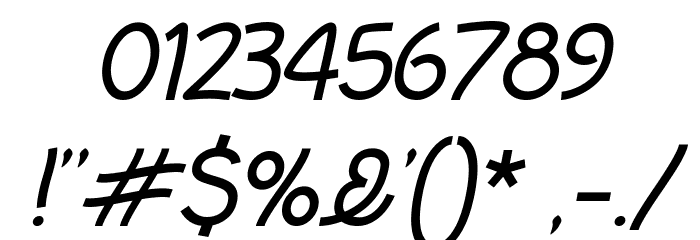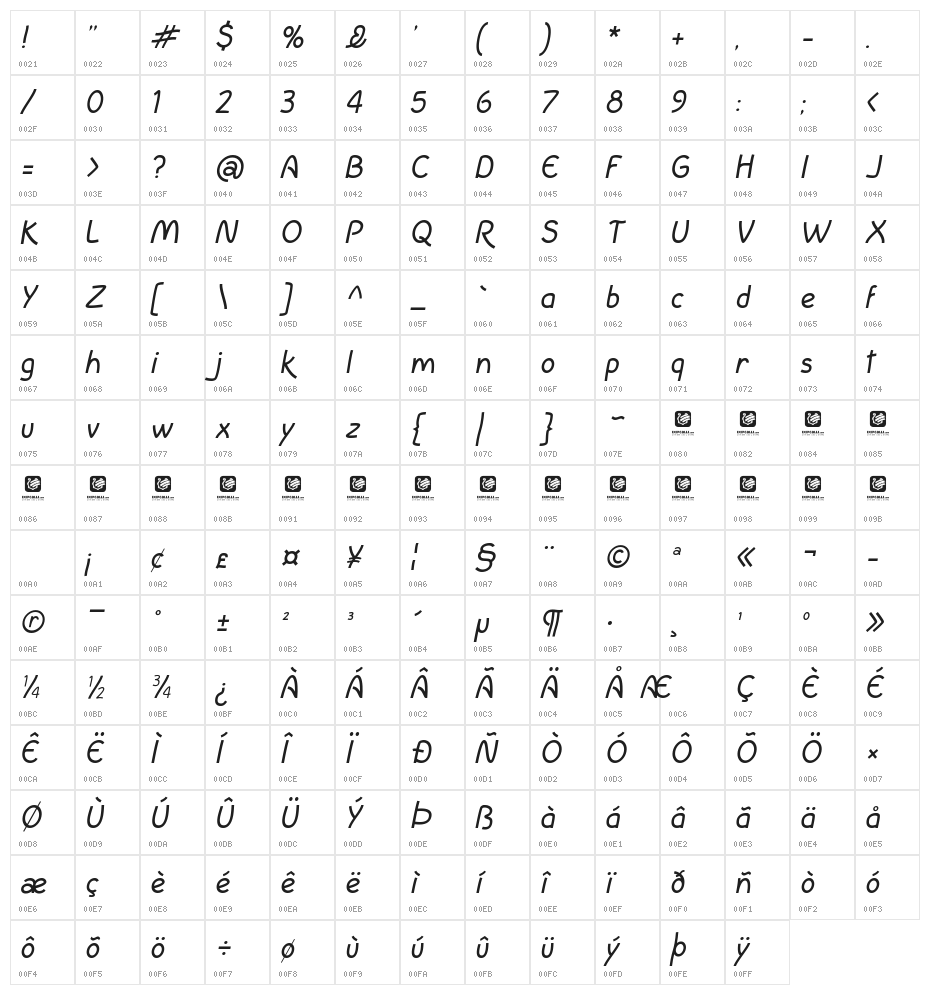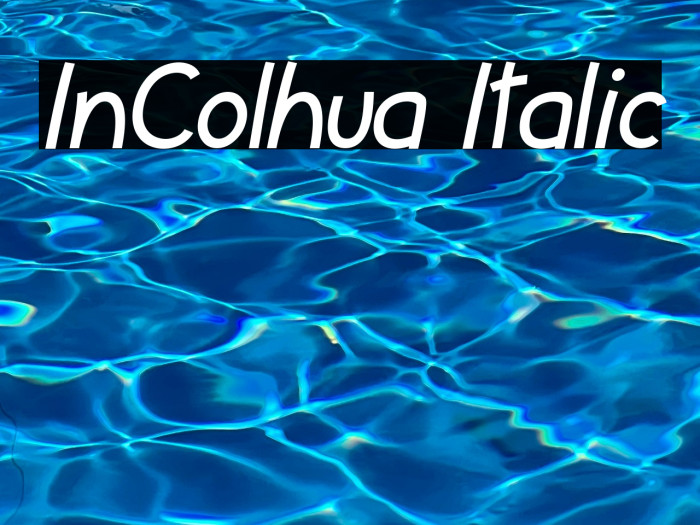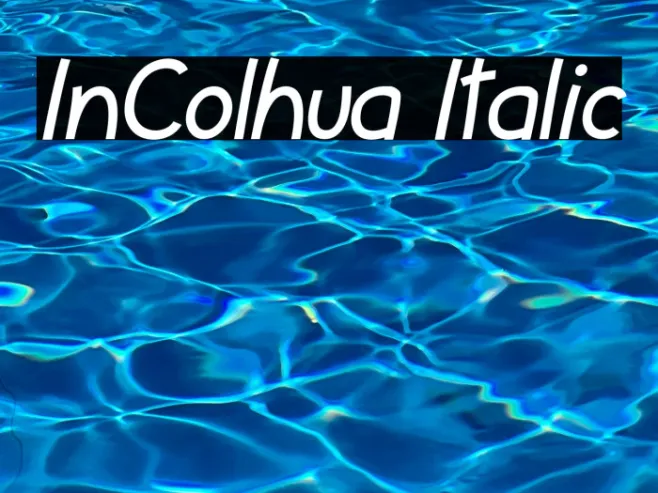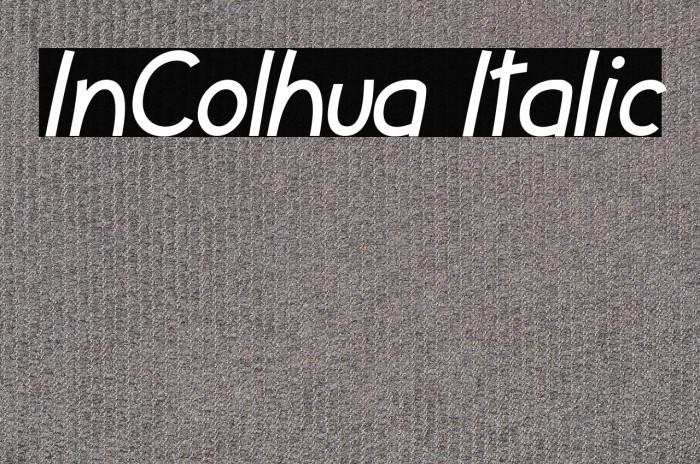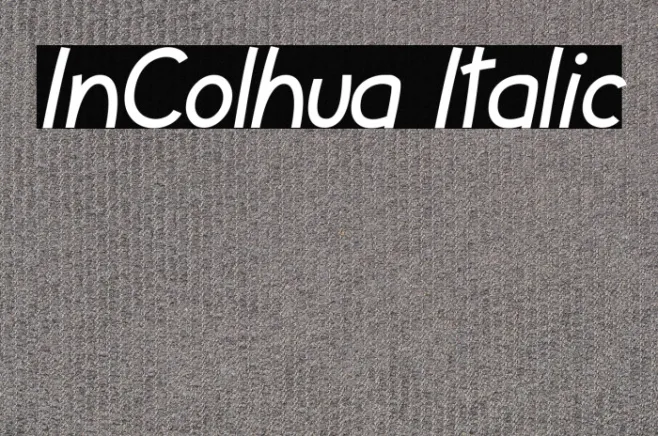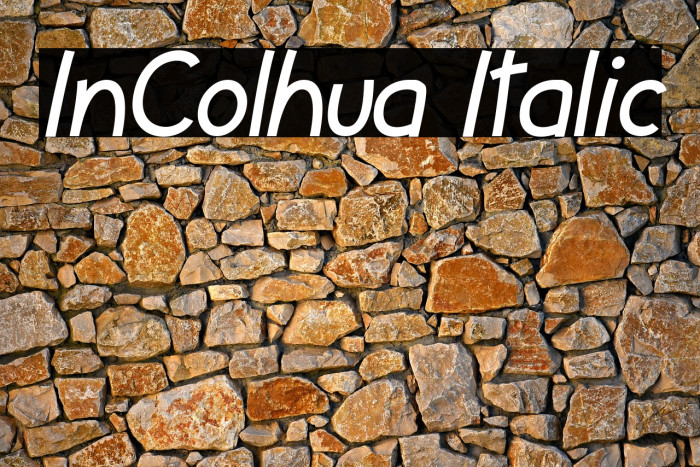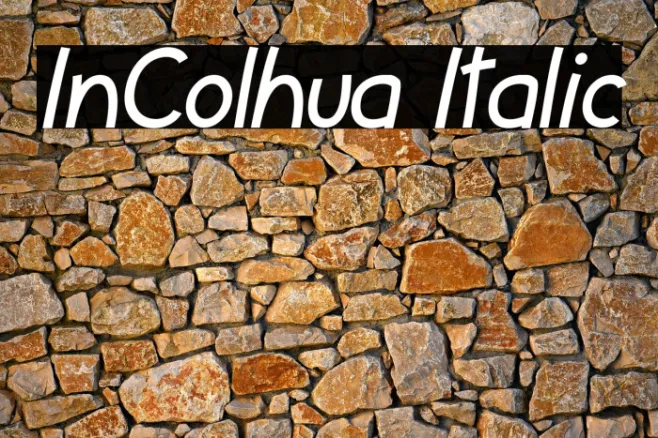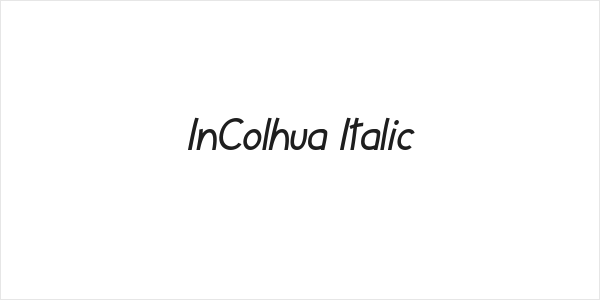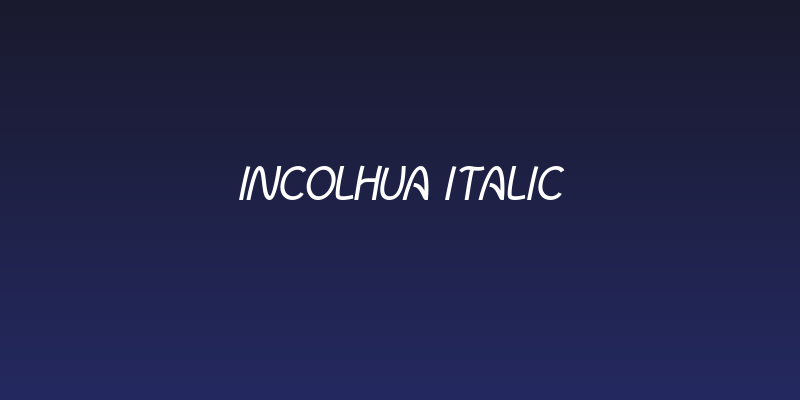
InColhua Italic Font
InColhua Italic Description
This font features a dynamic and flowing italic style, characterized by its smooth curves and slightly slanted letters. The uppercase letters are bold and prominent, while the lowercase letters maintain a consistent flow, enhancing readability. The numerals are clear and distinct, matching the overall style of the alphabet. Special characters are well-integrated, maintaining the font's cohesive look. The font's design is modern and versatile, suitable for various creative applications.
| Proposed Projects | Ideal for branding, advertising, and creative projects that require a modern and dynamic touch. |